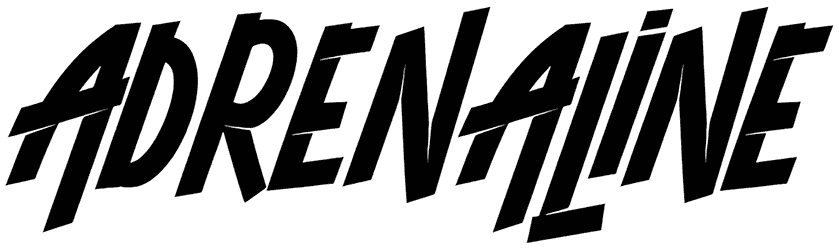
Adrenaline Font
If you want your branding, logos, movies, or TV shows to stand out from the crowd and attract more fans and customers, then you should use the 80s font, Adrenaline. Even though it’s not very readable, its casual, informa…
If you want your branding, logos, movies, or TV shows to stand out from the crowd and attract more fans and customers, then you should use the 80s font, Adrenaline.